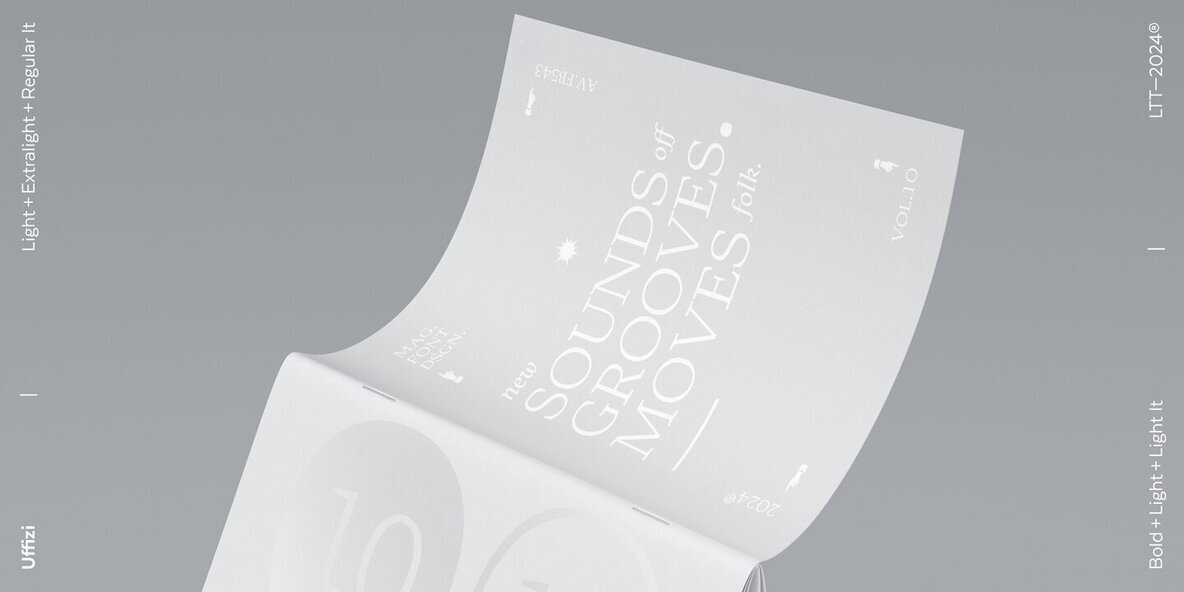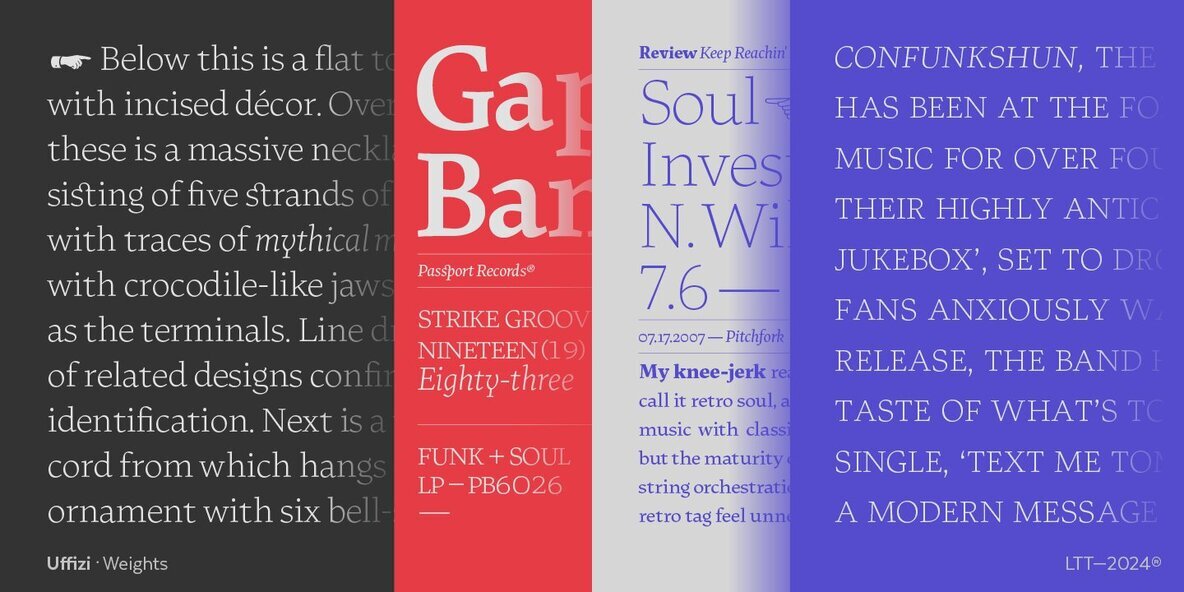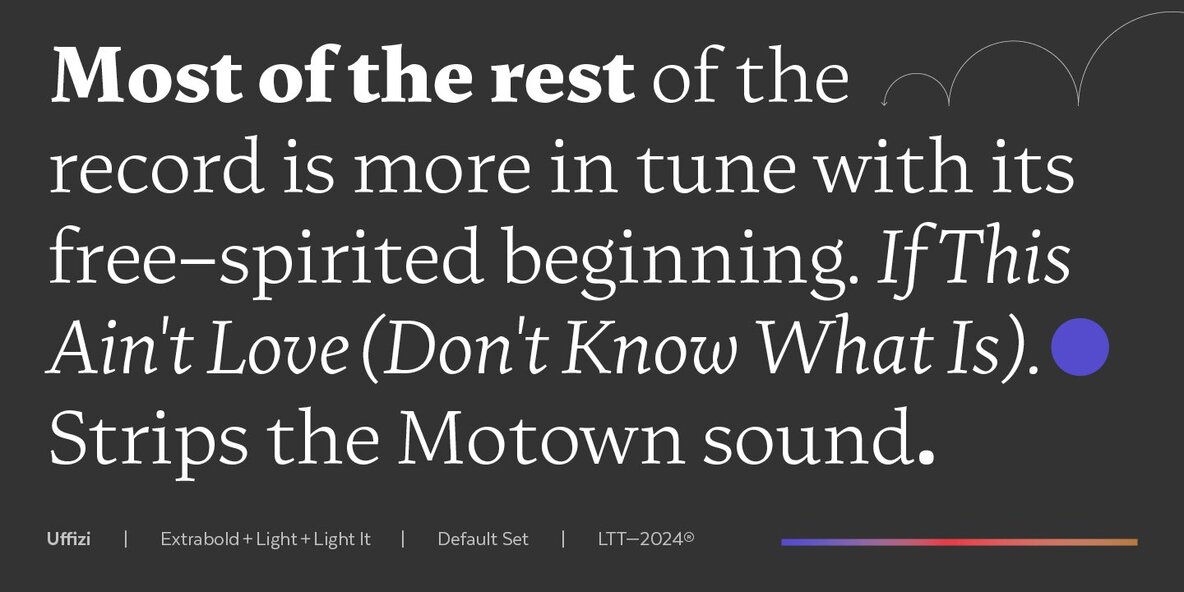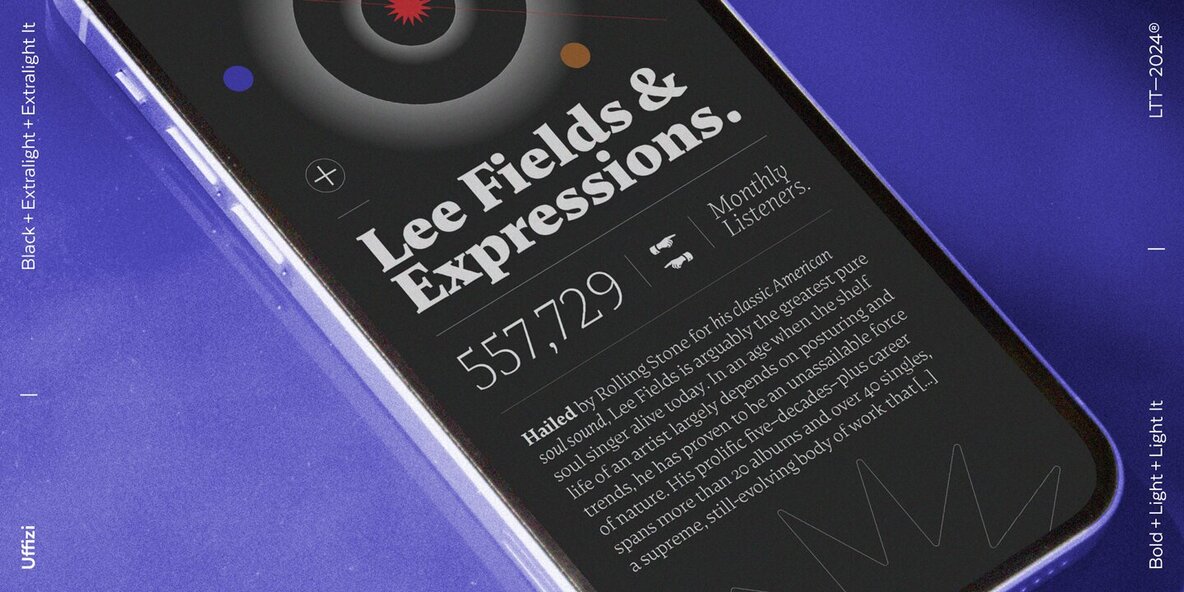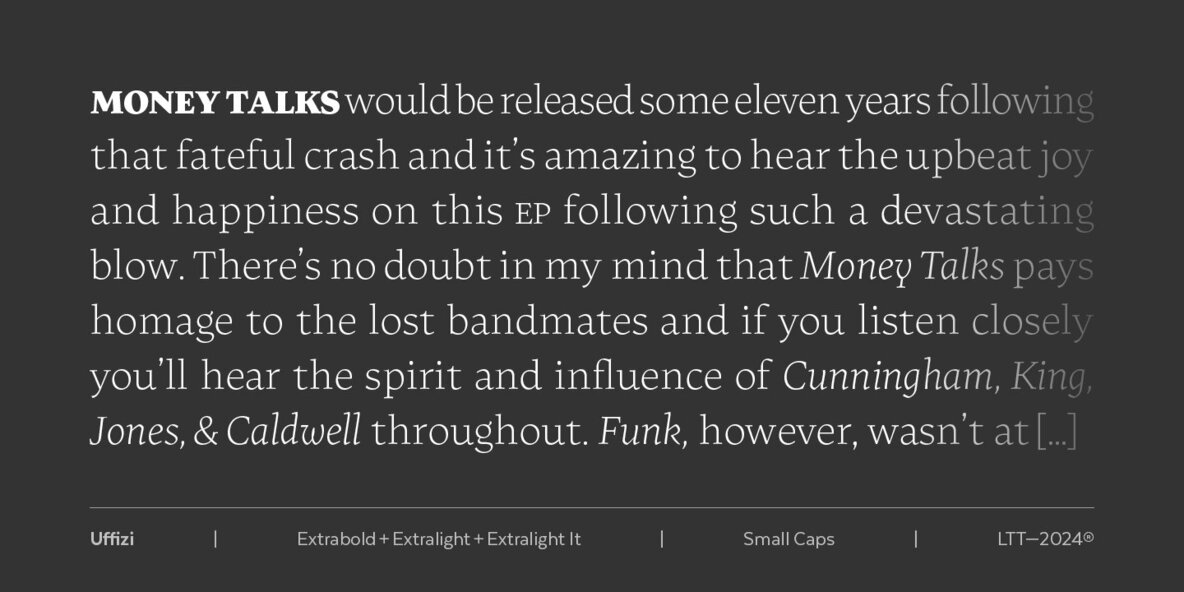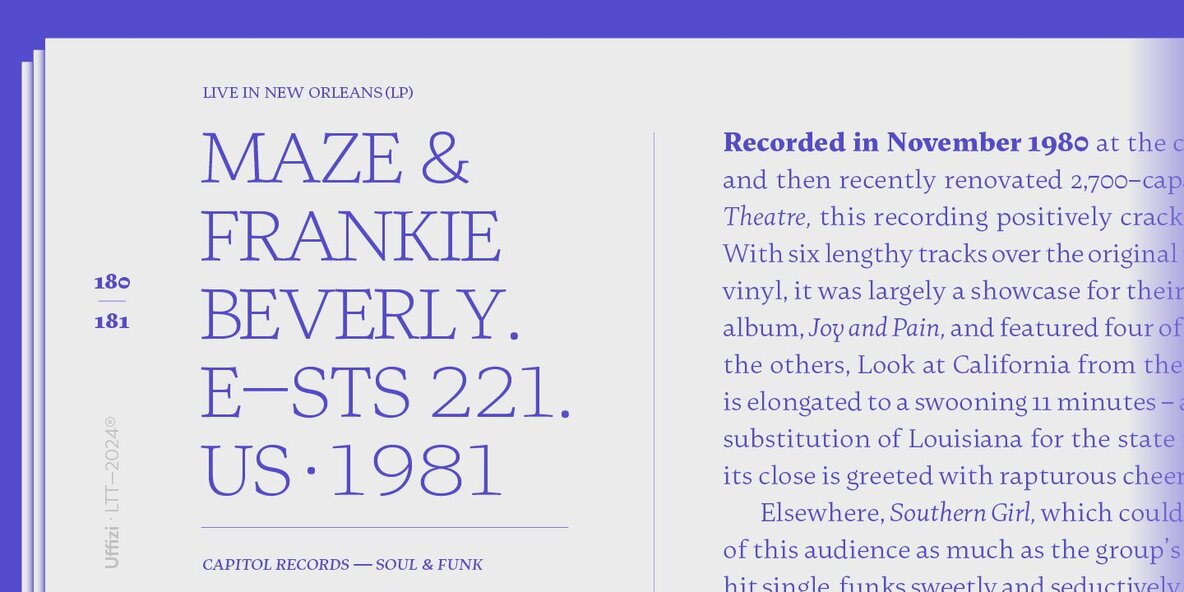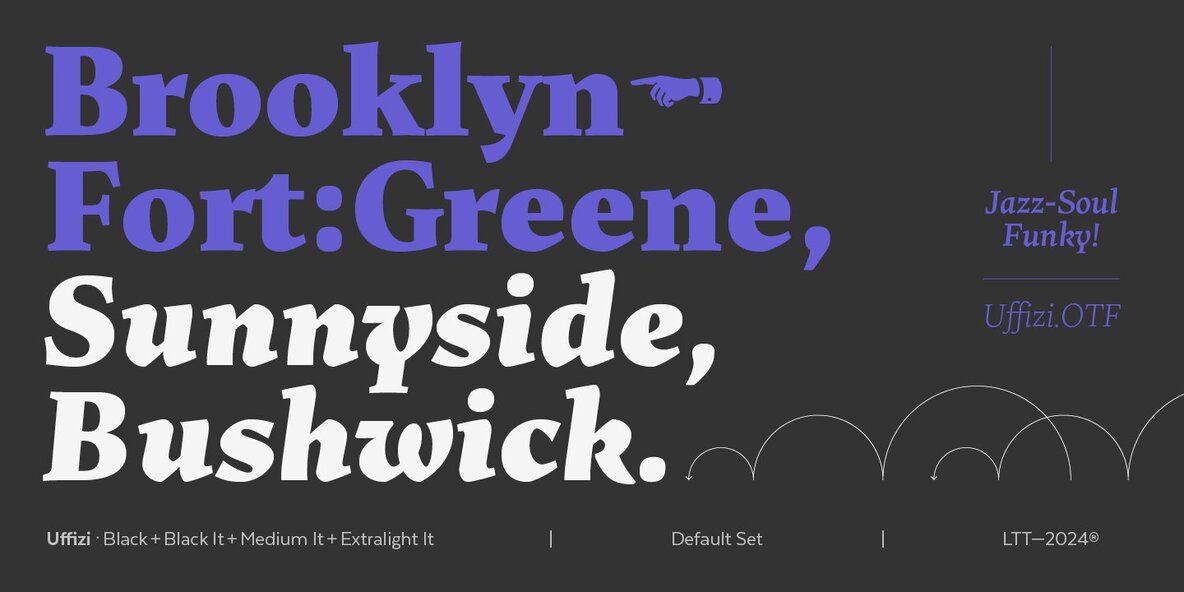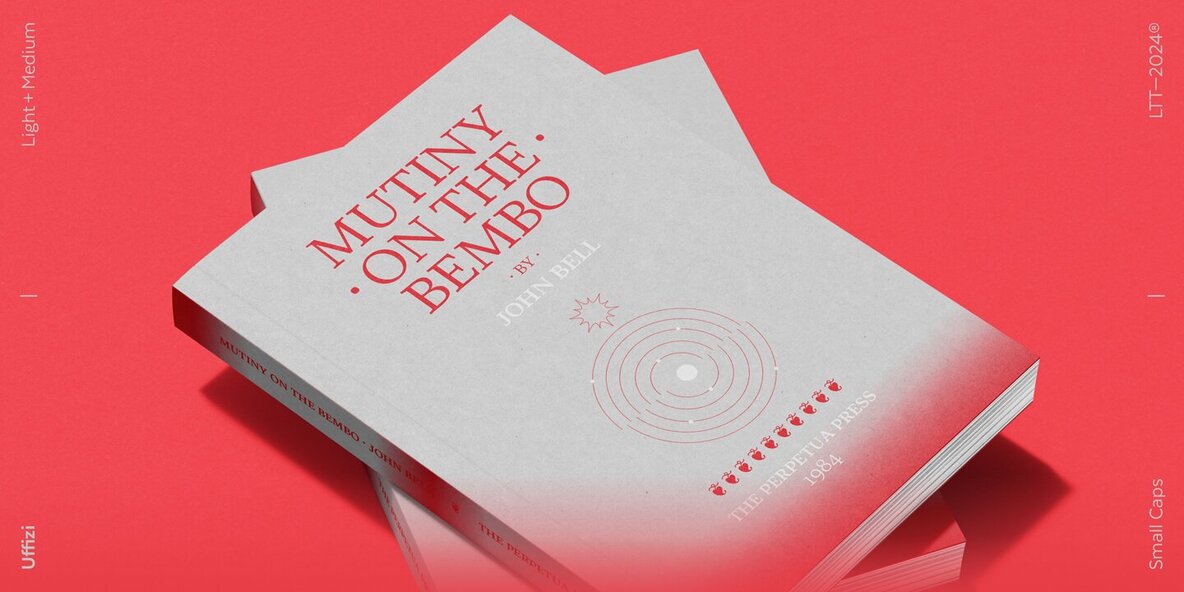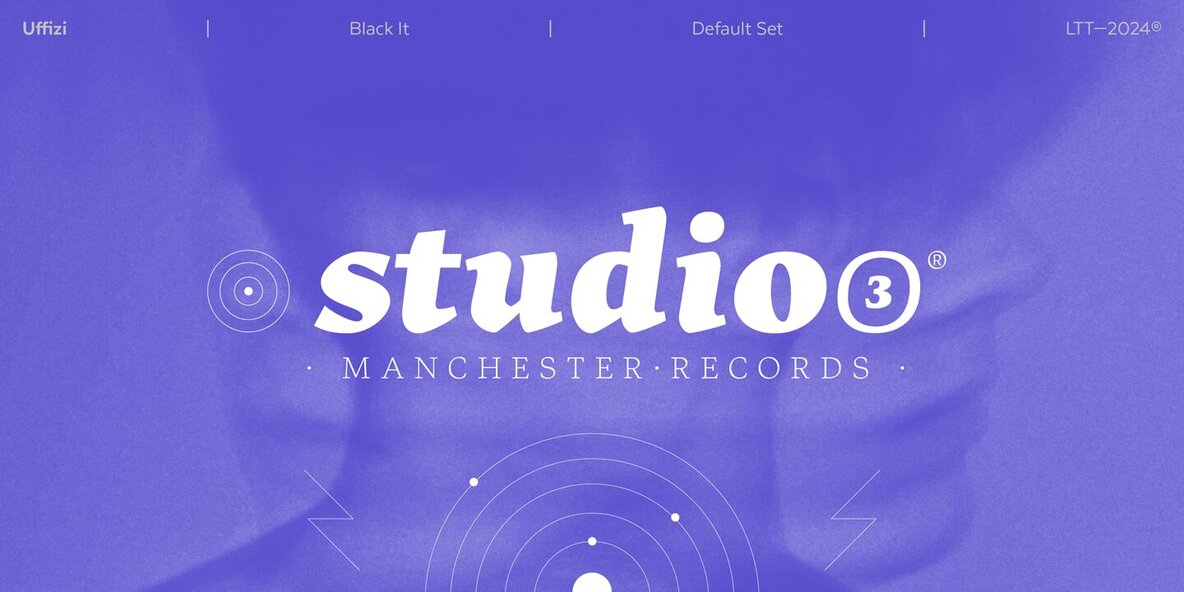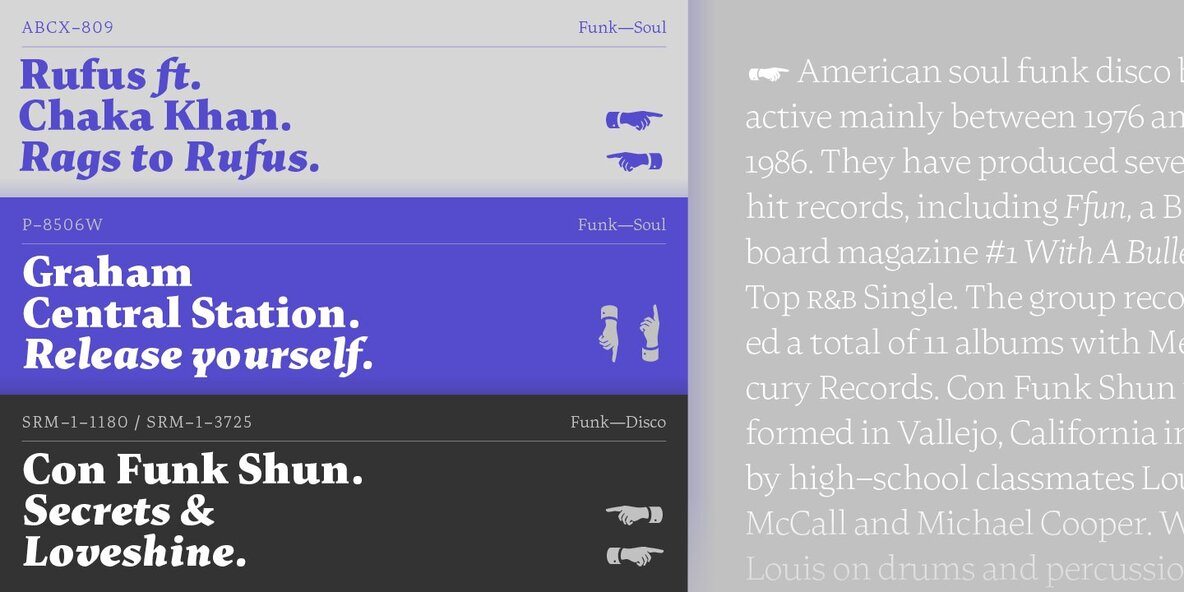
Uffizi Font
Uffizi is a text typeface that fuses classic elegance with contemporary design. Created to offer continuous and comfortable reading, Uffizi stands out for its uniform gray text, guaranteeing a pleasant viewing experience. It combines delicacy and readability in small sizes with a strong, distinctive presence in large sizes. The contrast in its pattern gives it a fresh and modern appearance, making it versatile for a wide range of applications, from books and magazines to digital design and advertising. To meet today's typographic demands, Uffizi includes an extensive character set covering small caps, alternates, ligatures, old numbers and proportionals, all accompanied by their corresponding italic versions. This variety of characters allows Uffizi to adapt to different contexts and editorial needs, providing flexibility and adaptability in any design project. The fusion of classic and contemporary makes it an ideal option for designers looking for a versatile typography with character.